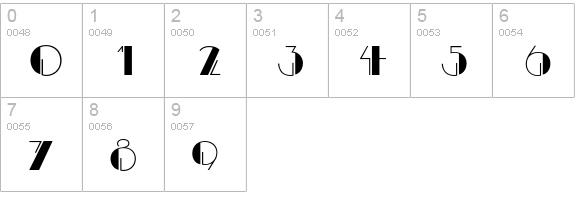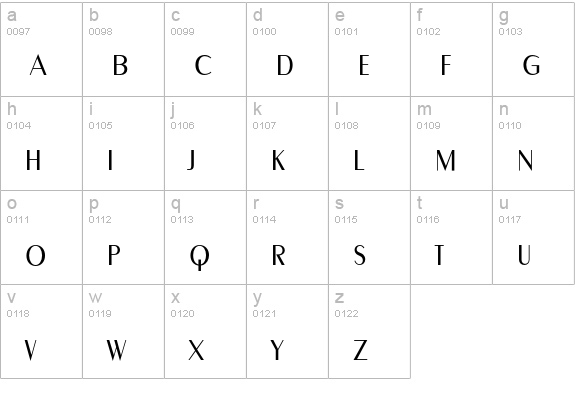
Charming Font Details
The Charming font exudes elegance and sophistication with its delicate curves and stylish details. This font is perfect for adding a touch of charm to any design project, whether it be invitations, logos, or social media graphics. Its timeless appeal makes it a versatile choice for both print and digital applications. What's even better is that the Charming font is available for free download at FontsMarket.com. So go ahead and elevate your designs with this enchanting typeface without breaking the bank. Embrace the beauty of Charming font and let your creativity shine with this stunning addition to your font collection.